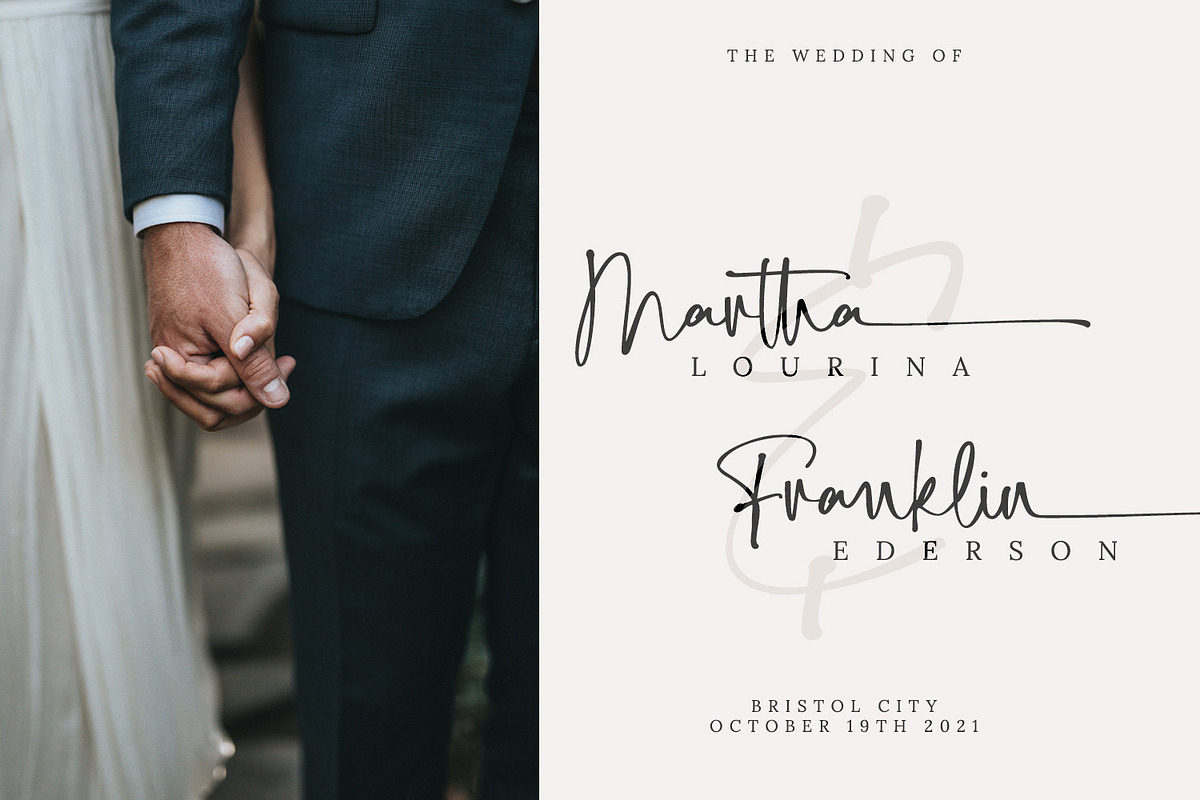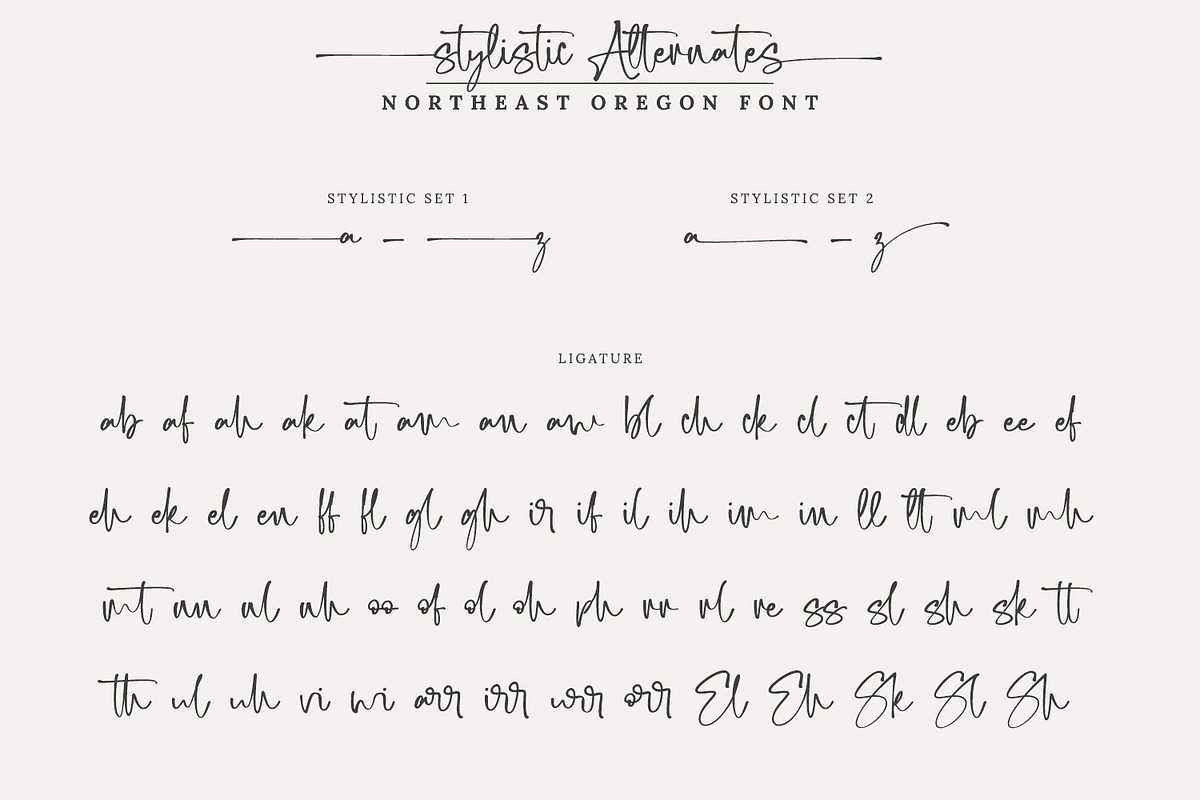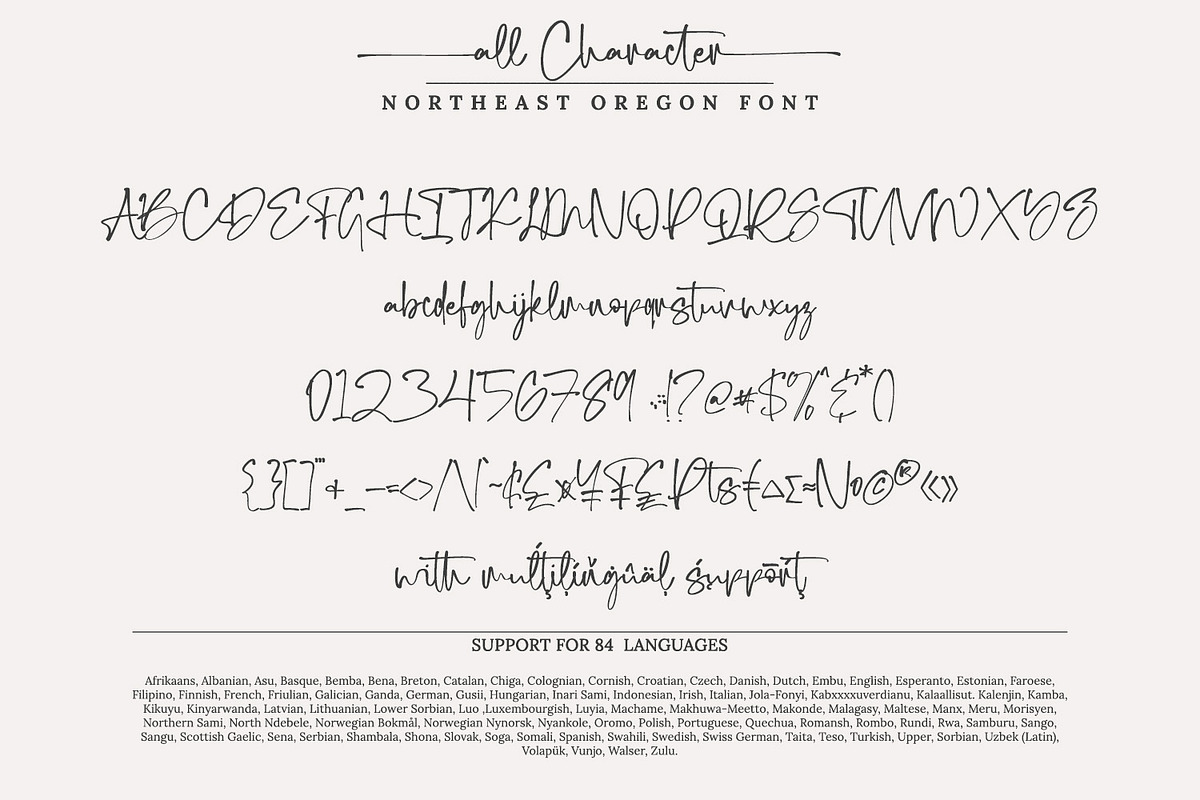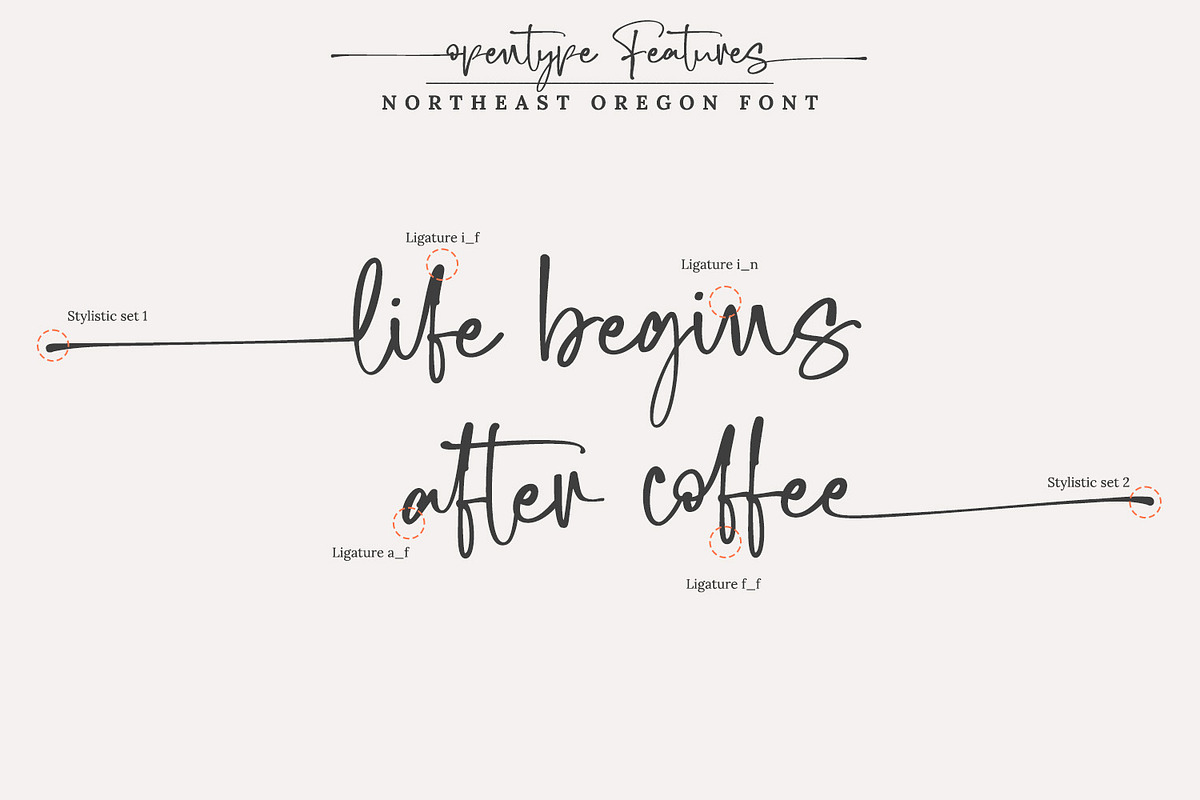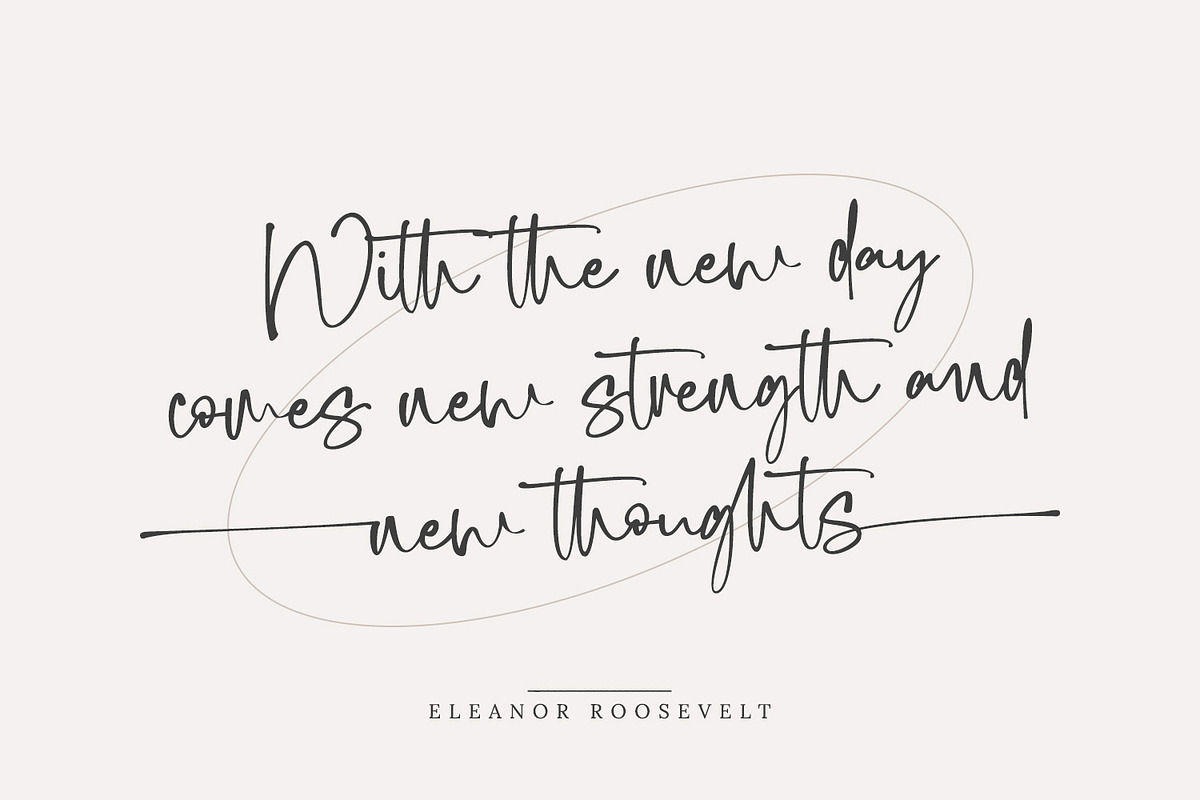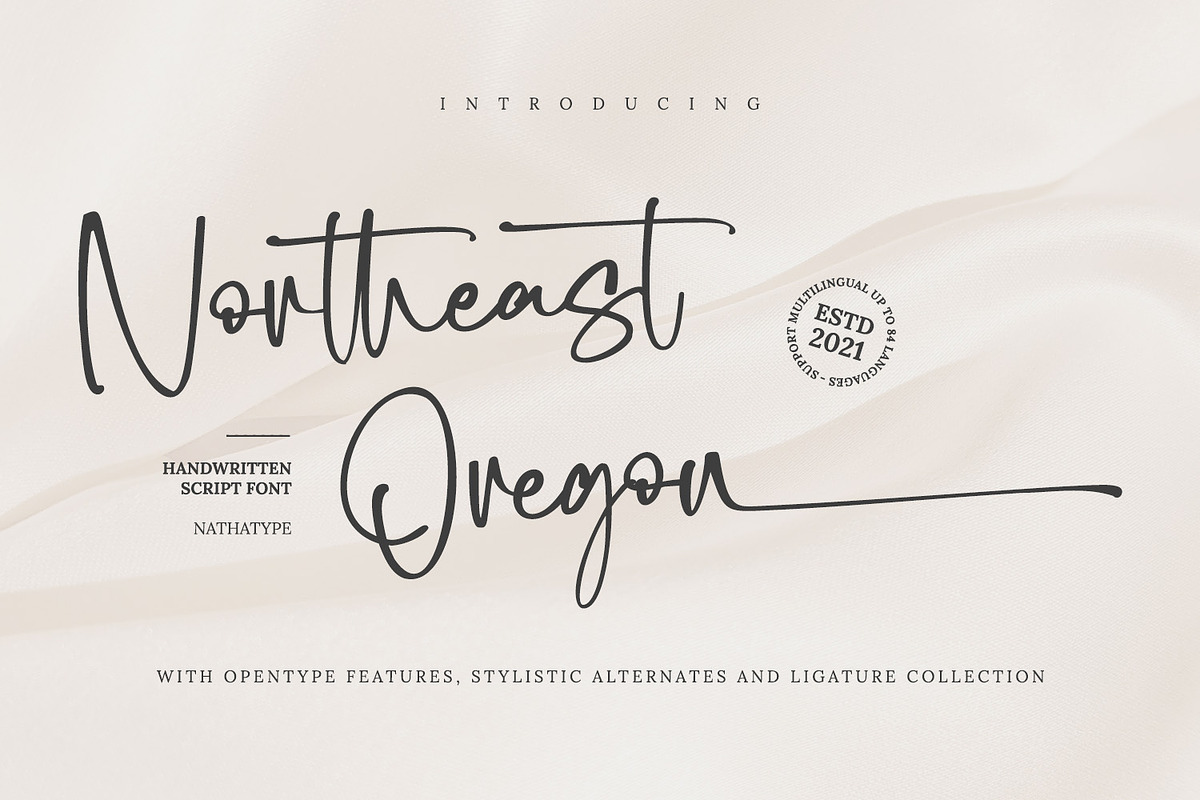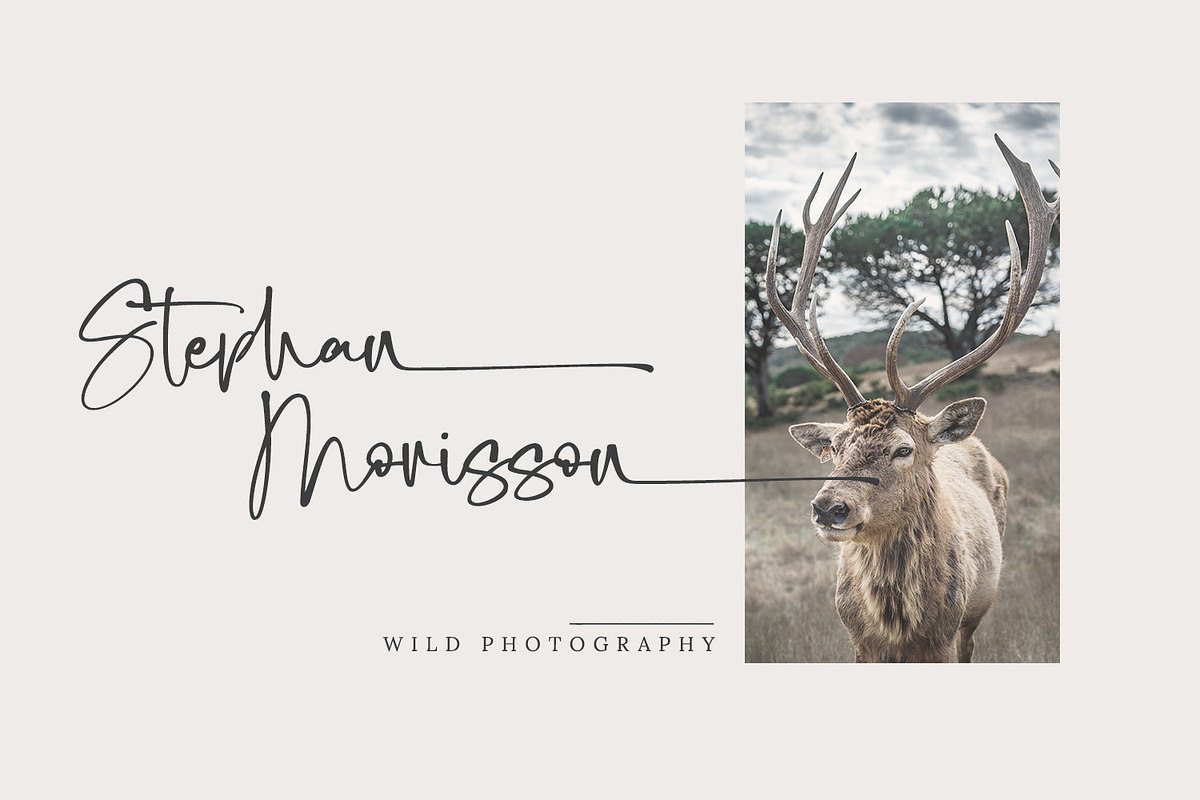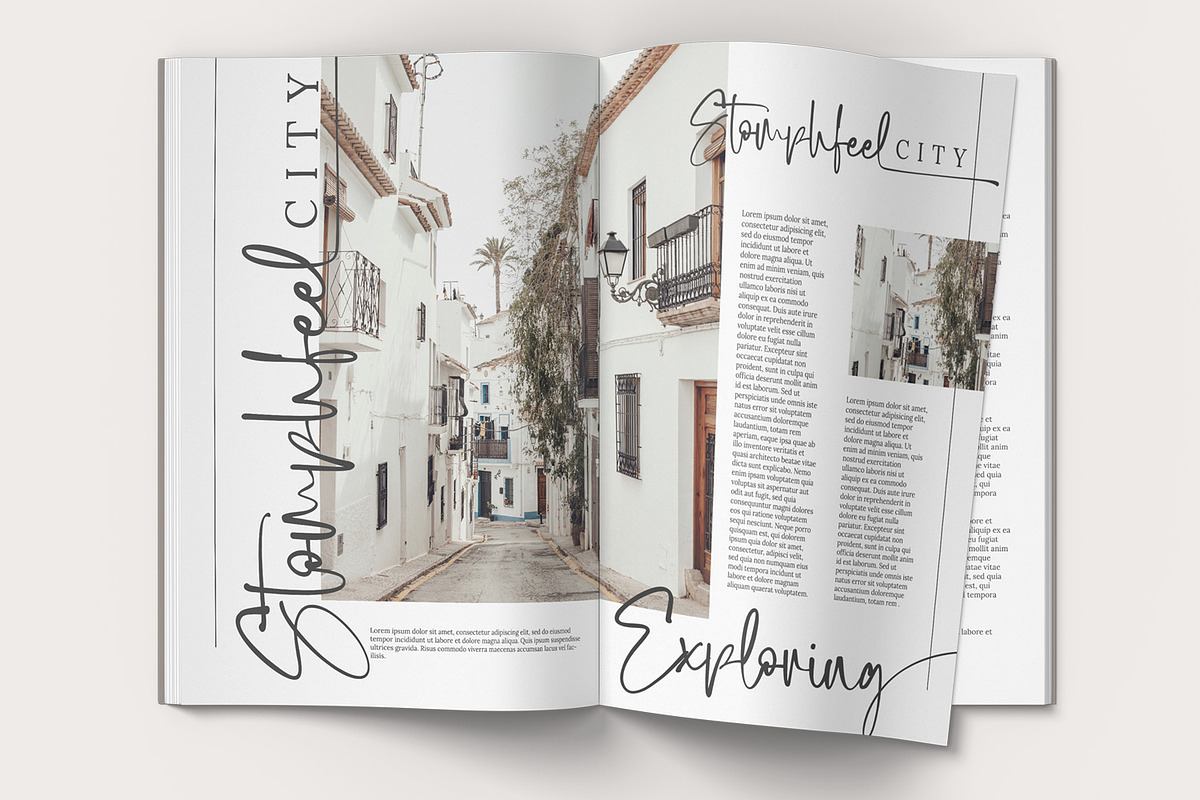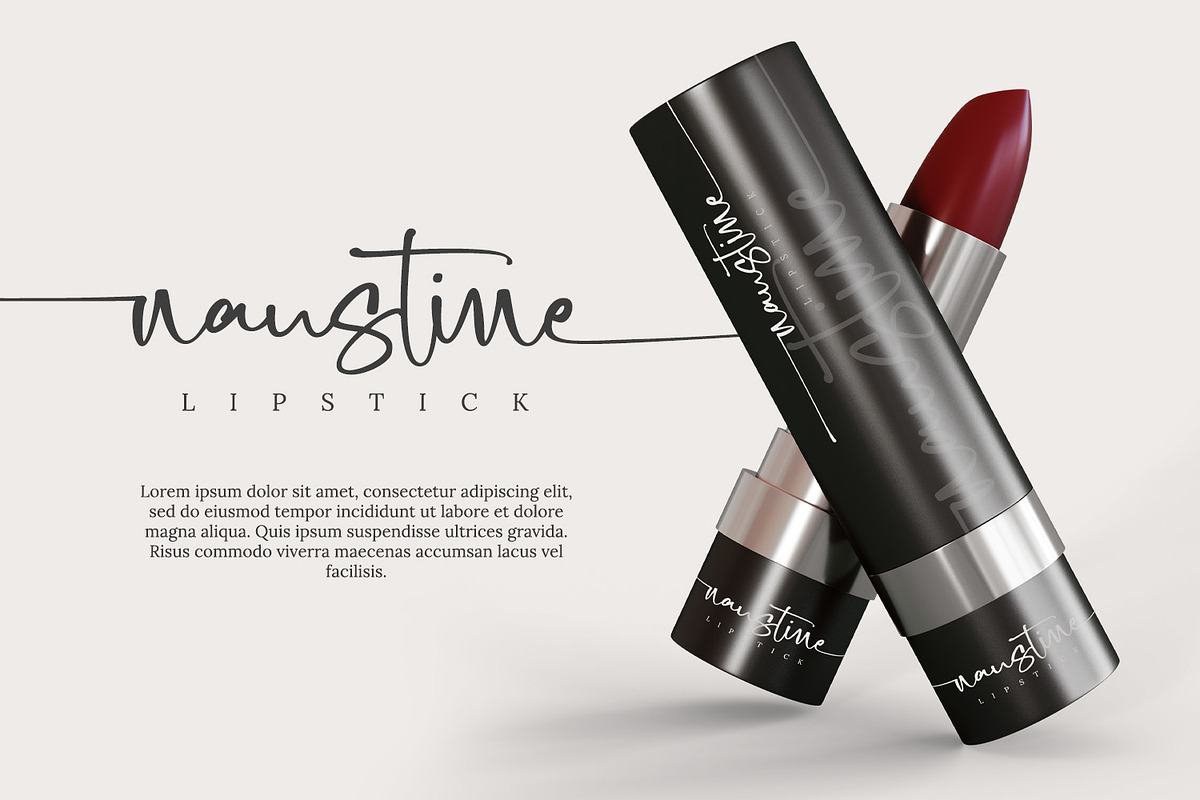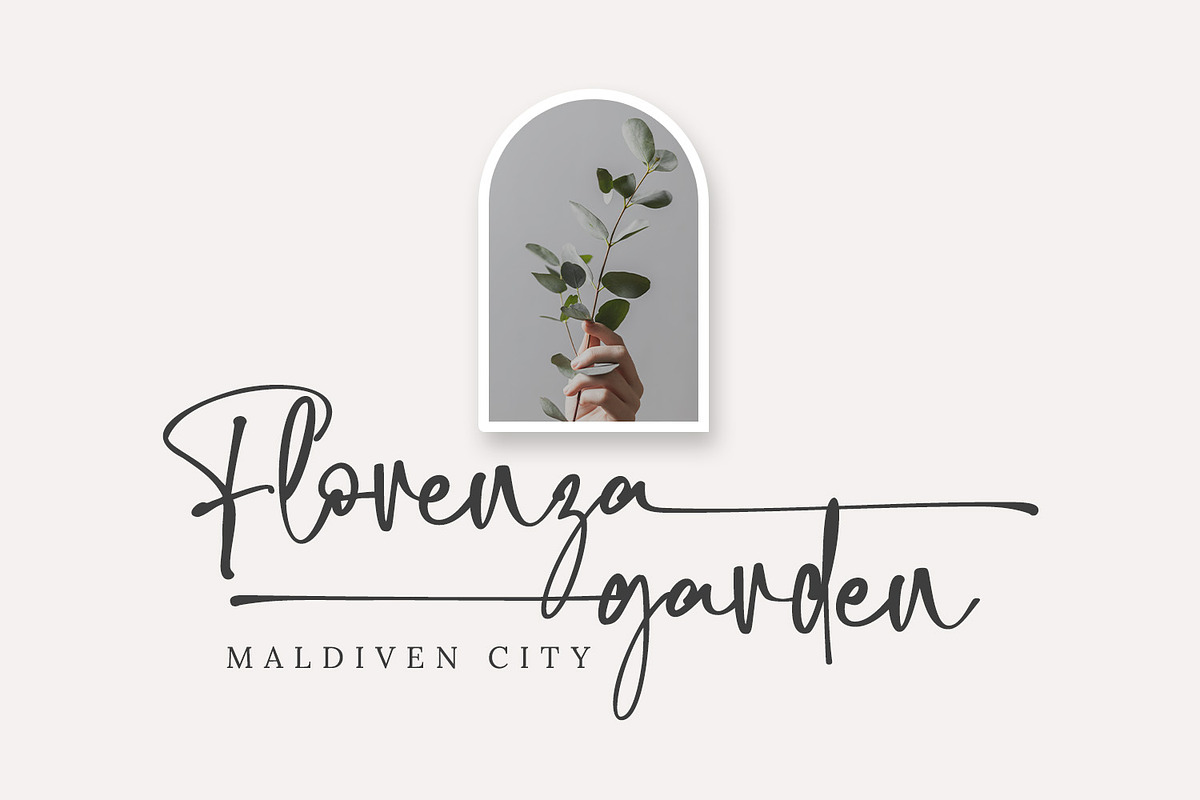
Northeast Oregon
Are you looking for a handwritten font? Do you dream of creating headings that stand out and inspire creativity, imagination, and endless fun? Wait no more, we will give you the best choice.
Northeast Oregon-A Handwritten Font
Northeast Oregon is a elegant designed with a modern vibe. It brings charming curves and satisfying patterns This handwritten font is perfect for anything beautiful and neat.. A real head-turner for your presentation, designs, branding, quotes, invitation, website illustrations, and much more.
Our font always includes Multilingual Support to make your branding reach a global audience.
- Stylistic Sets